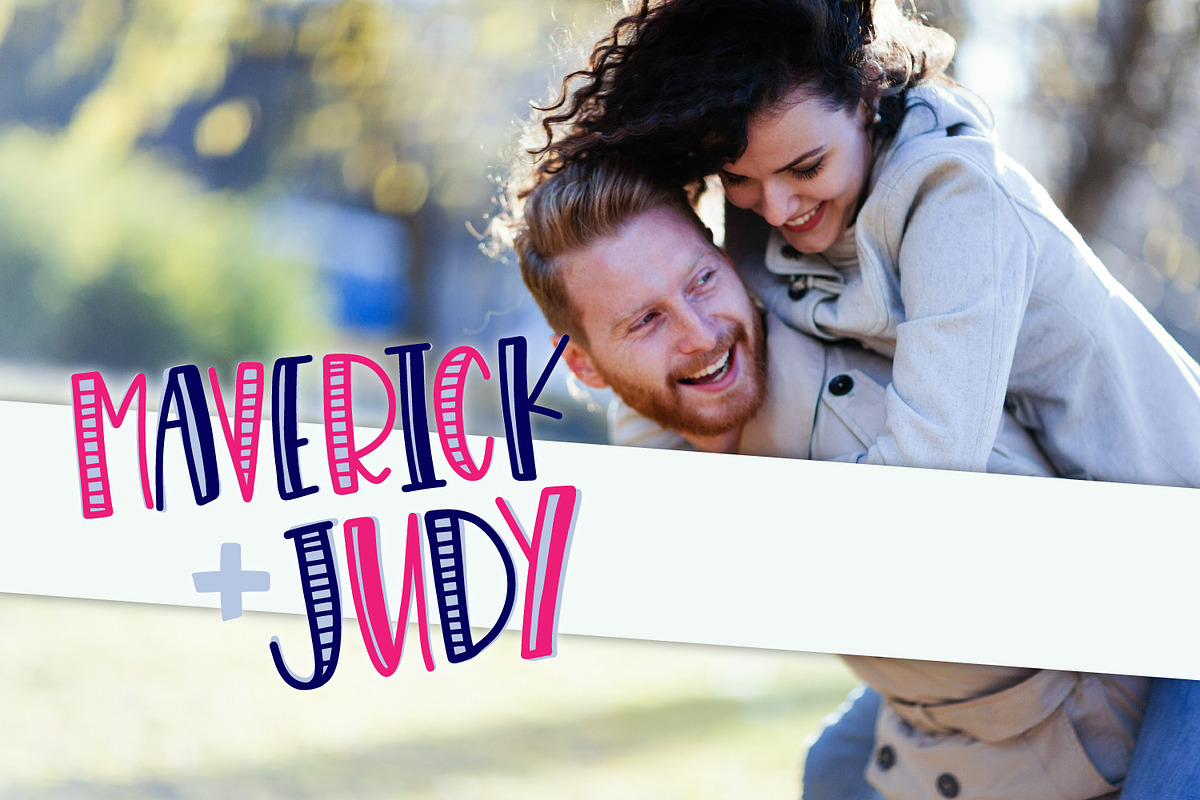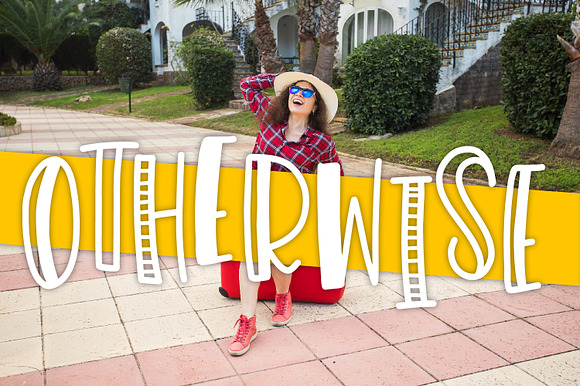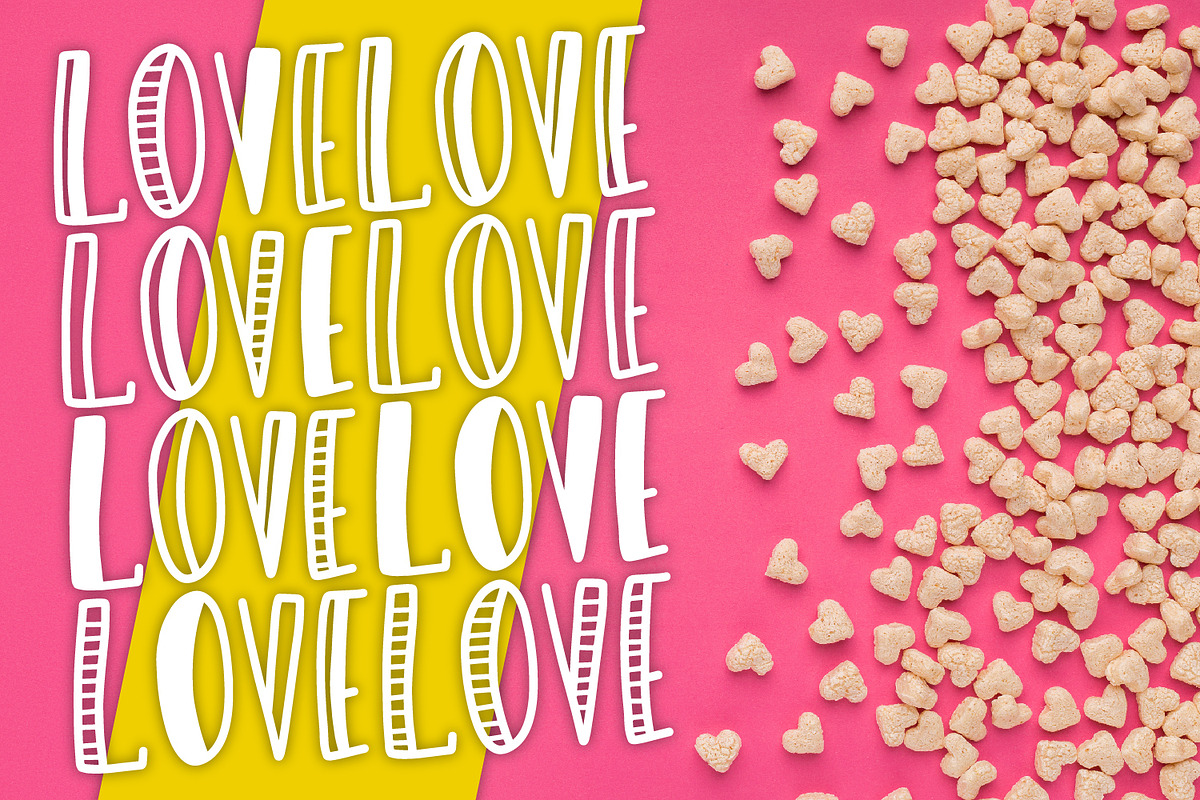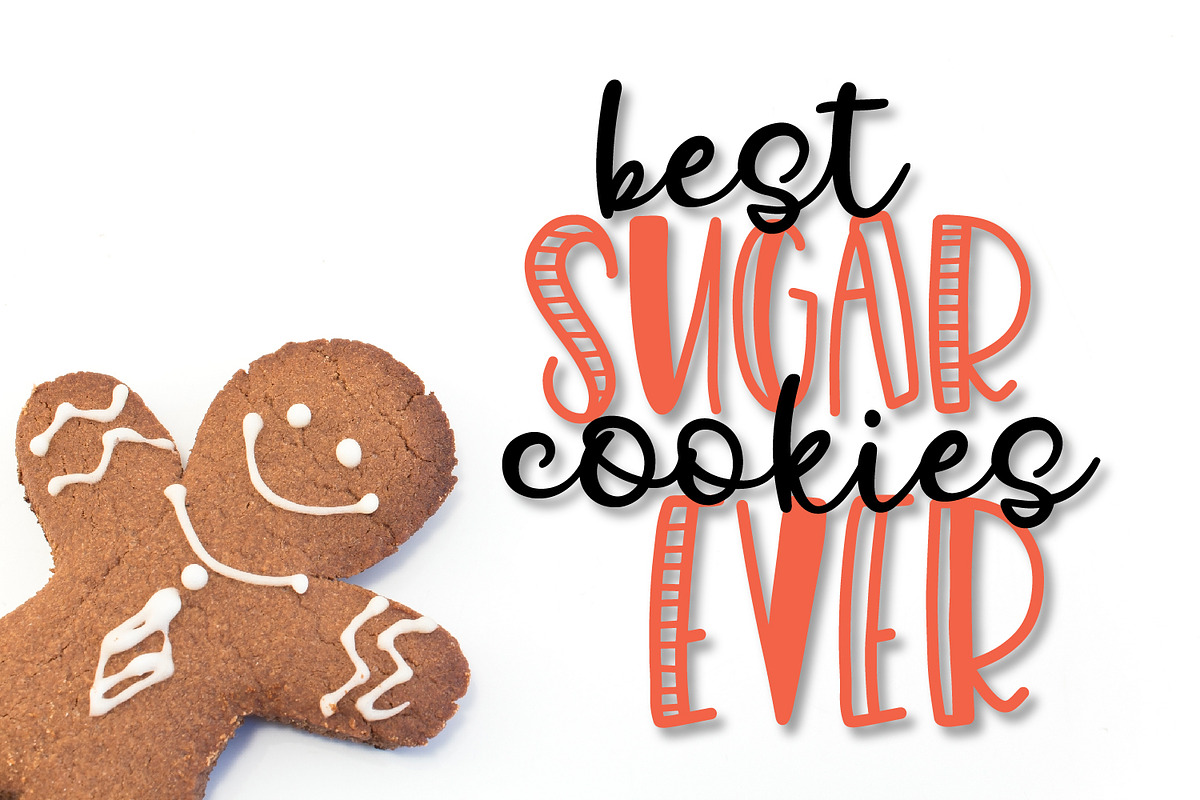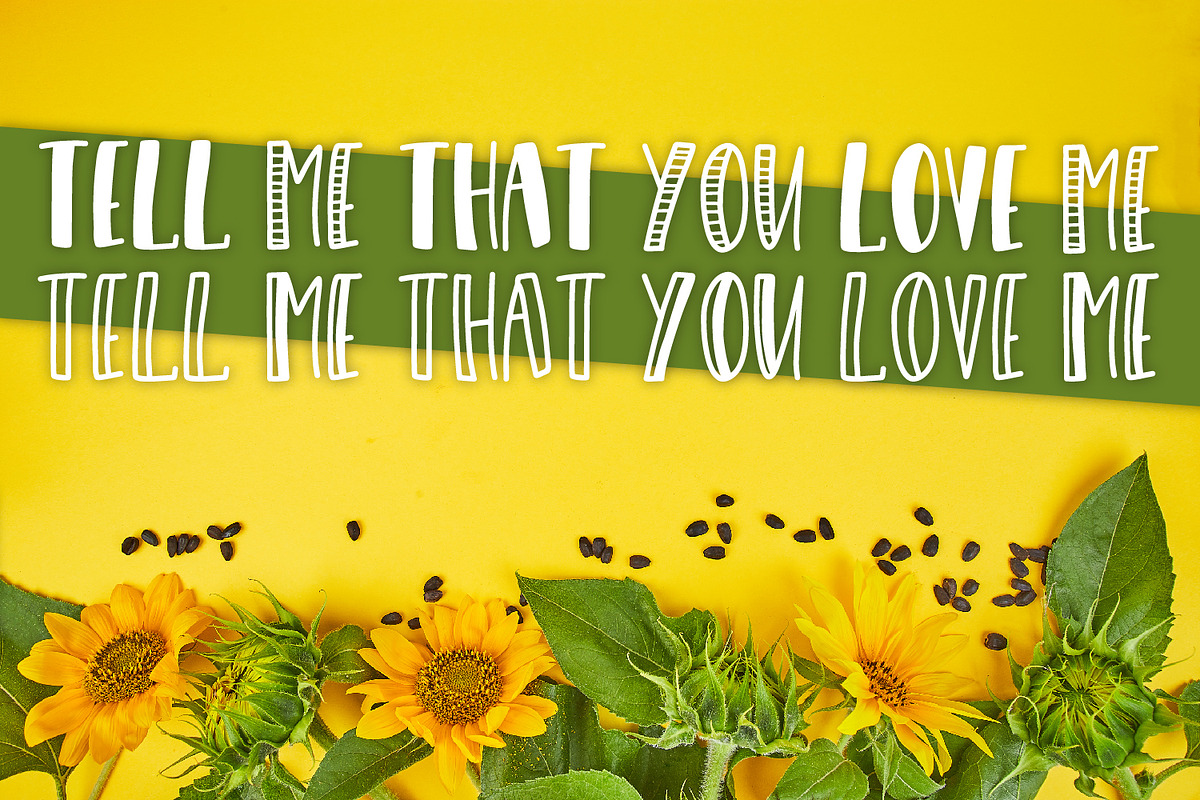
Otherwise - A Silly Mixable Font Duo
Why Otherwise - A Silly Mixable Font Duo is worth a look
Otherwise - A Silly Mixable Font Duo by CraftyLittleNodes fits naturally into Branding, posters, packaging, typography.